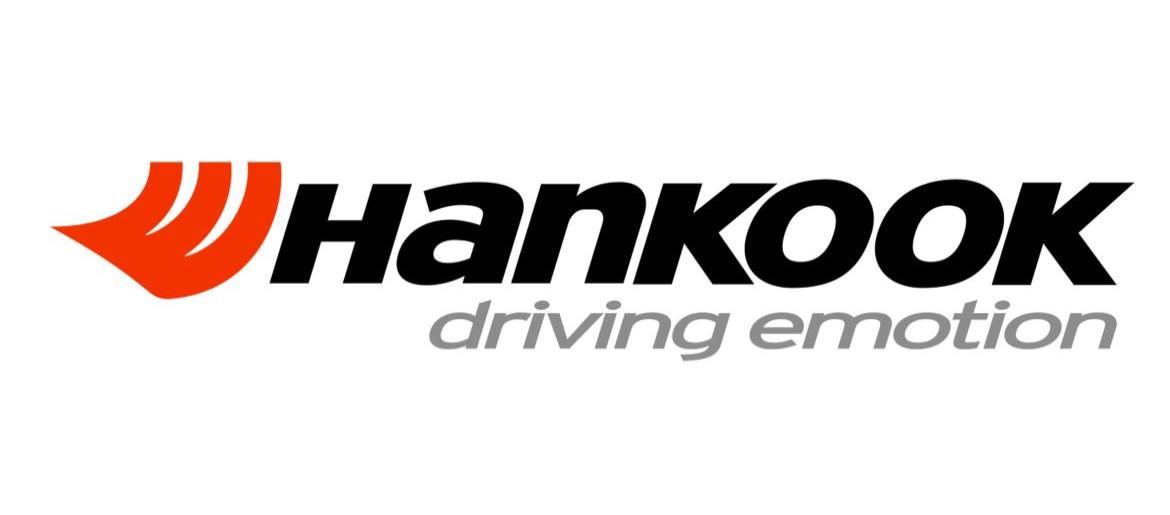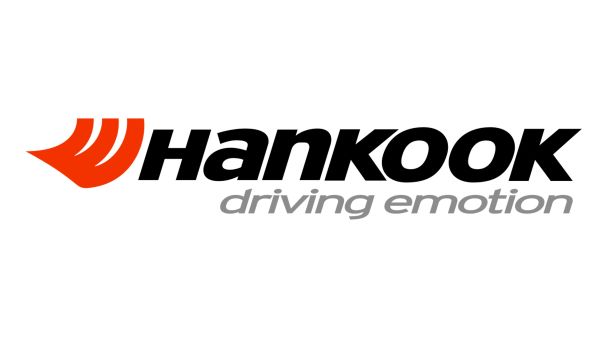
Hankook Font
What Font is Hankook?
The Hankook logo features a custom-designed typeface, created to convey speed, power, and modern industrial movement. Though not publicly available as a retail font, its structure closely resembles Neue Plak Extra Black Italic, a premium typeface with strong weight, tight spacing, and a sleek italic slant. For designers seeking a similar look, there is also a free alternative Hankook-style font that captures much of the bold angular attitude of the original, making it suitable for motorsport graphics, racing-inspired branding, and fan-made replicas.
About Hankook